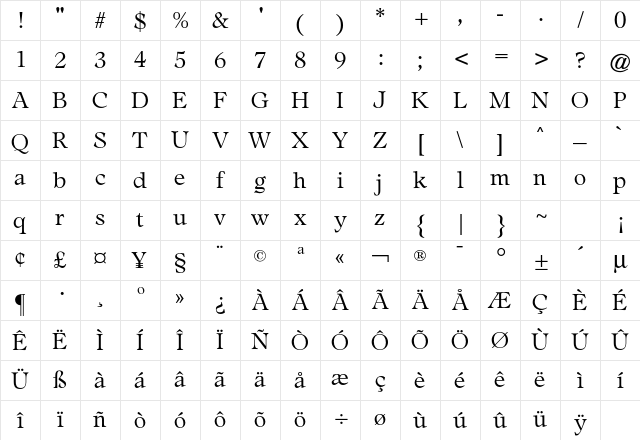
Complete Adroit CG Light Regular glyph index. Displaying only characters natively supported by Adroit CG Light Regular font.
Adroit CG Light is a composed and adaptable typeface that performs quietly and consistently across a wide range of design contexts. Its slender proportions lend an understated elegance to any composition.